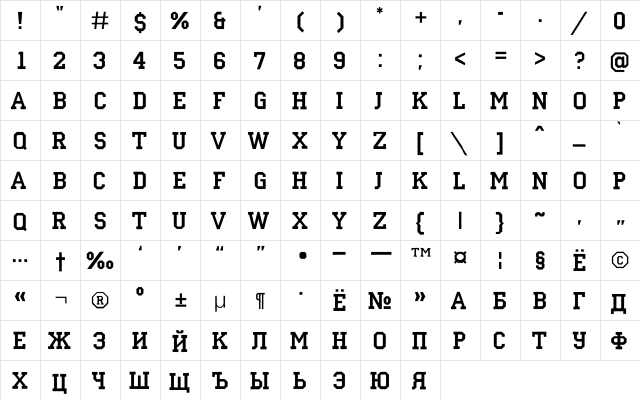
a_CampusRg Normal
Design Context for a_CampusRg Typeface
a_CampusRg offers clean, dependable letterforms without strong stylistic allegiance, making it a practical choice for designers who need flexibility.
Pro Tip: Use a_CampusRg in both headline and body roles to test its range before committing to a single application.